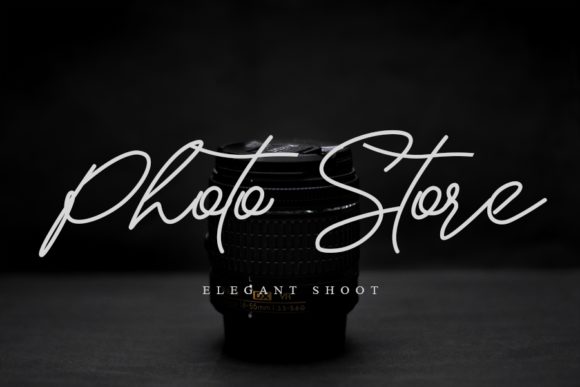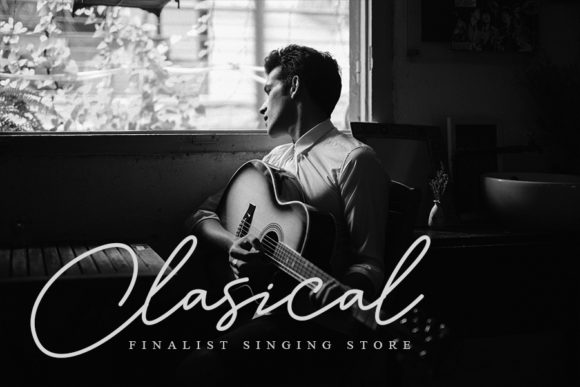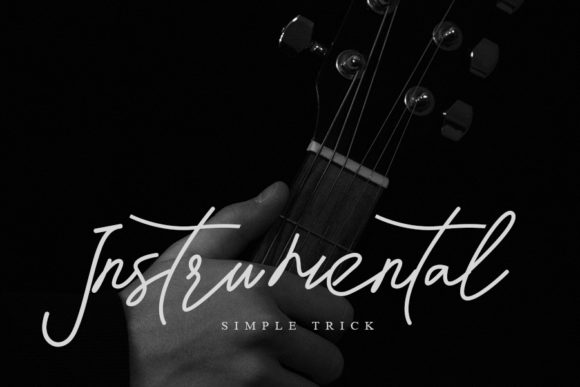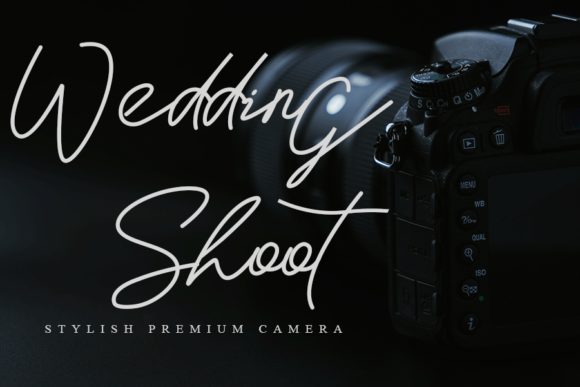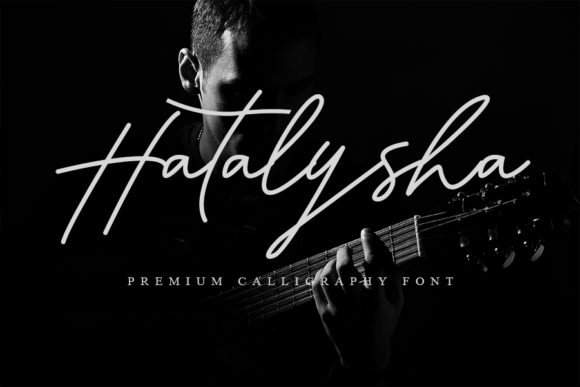
Hatalysha Font: Elevate Your Designs with Elegance and Flair
In the world of typography, few fonts manage to capture the essence of elegance and sophistication as beautifully as the Hatalysha Font. This stunning script font is a perfect blend of classic charm and modern flair, making it an ideal choice for designers and crafters looking to add a touch of refinement to their projects. Whether you’re working on wedding invitations, thank you cards, quotes, greeting cards, logos, or business cards, Hatalysha Font is sure to impress.
The Beauty of Hatalysha Font
One of the standout features of the Hatalysha Font is its incredibly elegant and flowing design. The font’s varying baseline, smooth lines, and gorgeous glyphs all work together to create a sense of movement and fluidity, giving your designs a dynamic and sophisticated look. The font also features stunning alternates, which allow you to add even more personality and flair to your projects.
Wedding designers and event planners, rejoice! The Hatalysha Font is a match made in heaven for wedding invitations, save-the-date cards, and other event-related designs. Its elegant and refined appearance makes it perfect for formal events, while its playful and whimsical touches ensure that it remains approachable and romantic. Whether you’re designing for a luxurious ballroom wedding or an intimate outdoor gathering, Hatalysha Font is sure to set the tone for a memorable and stylish celebration.
Adding a Personal Touch to Your Designs
One of the things that sets the Hatalysha Font apart from other script fonts is its ability to add a personal touch to your designs. The font’s handwritten feel makes it perfect for quotes, greeting cards, and other projects where you want to convey a sense of warmth and personality. Whether you’re designing for a client or working on a personal project, Hatalysha Font is sure to help you create something truly special.
Key Features of Hatalysha Font
- Elegant and flowing design: Hatalysha Font features a beautiful, cursive script that’s perfect for adding a touch of sophistication to your designs.
- Varying baseline: The font’s varying baseline creates a sense of movement and fluidity, giving your designs a dynamic and interesting look.
- Smooth lines and gorgeous glyphs: Hatalysha Font features smooth, flowing lines and beautiful glyphs that add to its elegance and charm.
- Stunning alternates: The font includes stunning alternates that allow you to add even more personality and flair to your projects.
Tips for Using Hatalysha Font
To get the most out of the Hatalysha Font, here are a few tips to keep in mind:
- Use it sparingly: While Hatalysha Font is beautiful, it can be overwhelming if used too much. Use it sparingly to add a touch of elegance to your designs.
- Pair it with contrasting fonts: Pair Hatalysha Font with contrasting fonts to create visual interest and add depth to your designs.
- Experiment with alternates: Don’t be afraid to experiment with the font’s alternates to add personality and flair to your projects.
In conclusion, the Hatalysha Font is a stunning script font that’s perfect for designers and crafters looking to add a touch of elegance and sophistication to their projects. Its elegant and flowing design, varying baseline, smooth lines, and gorgeous glyphs make it a versatile and beautiful choice for a wide range of designs. Whether you’re working on wedding invitations, thank you cards, quotes, greeting cards, logos, or business cards, Hatalysha Font is sure to impress. So why wait? Give Hatalysha Font a try today and see the difference it can make in your designs!